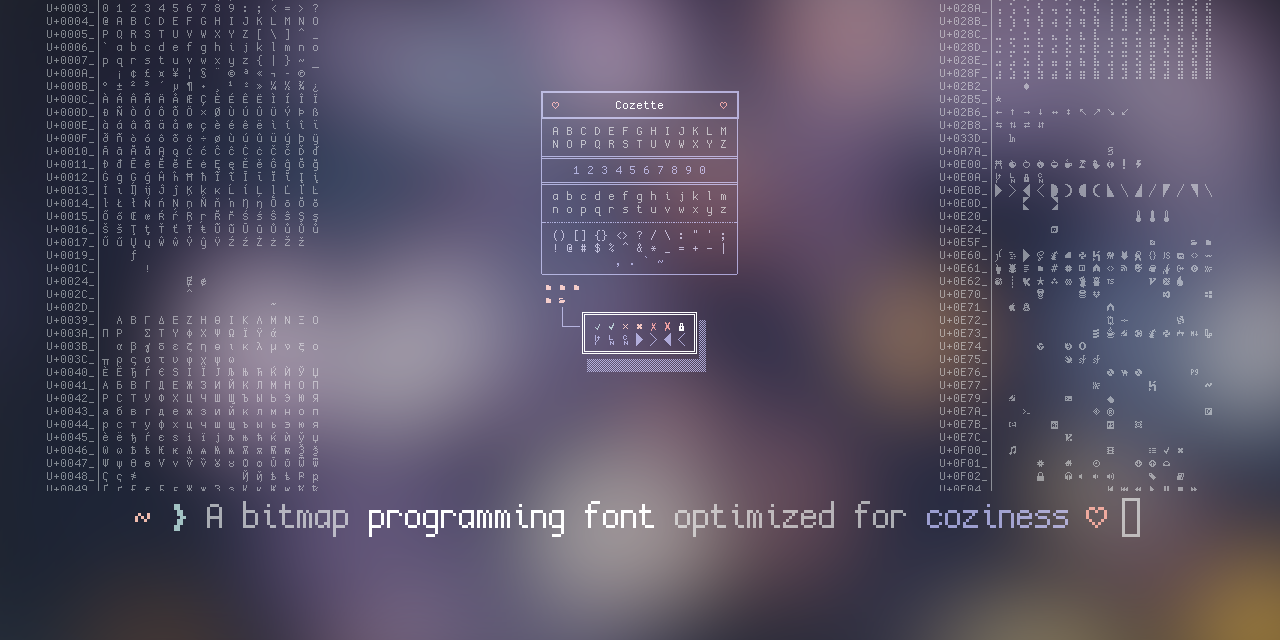
Best Nerd Font For Programming - Specifically to add a high number of extra glyphs from popular. Anonymous pro is a font created by the mark simonson studio with coding in mind, released under the open font license and thus. In the text below, we’ll look over 15 of the best fonts for programming. Throughout the post, we’ll discuss what each one contains, and. Explore the best font for programming that enhances readability, prevents errors, and keeps your eyes comfortable while coding. Nerd fonts patches developer targeted fonts with a high number of glyphs (icons). In this article, we’ll take a look at some of the best programming fonts that you can use for your next coding session.
Anonymous pro is a font created by the mark simonson studio with coding in mind, released under the open font license and thus. Nerd fonts patches developer targeted fonts with a high number of glyphs (icons). In the text below, we’ll look over 15 of the best fonts for programming. Throughout the post, we’ll discuss what each one contains, and. Explore the best font for programming that enhances readability, prevents errors, and keeps your eyes comfortable while coding. In this article, we’ll take a look at some of the best programming fonts that you can use for your next coding session. Specifically to add a high number of extra glyphs from popular.
Throughout the post, we’ll discuss what each one contains, and. Specifically to add a high number of extra glyphs from popular. Anonymous pro is a font created by the mark simonson studio with coding in mind, released under the open font license and thus. In the text below, we’ll look over 15 of the best fonts for programming. In this article, we’ll take a look at some of the best programming fonts that you can use for your next coding session. Explore the best font for programming that enhances readability, prevents errors, and keeps your eyes comfortable while coding. Nerd fonts patches developer targeted fonts with a high number of glyphs (icons).
In this article, we’ll take a look at some of the best programming fonts that you can use for your next coding session. Throughout the post, we’ll discuss what each one contains, and. Nerd fonts patches developer targeted fonts with a high number of glyphs (icons). In the text below, we’ll look over 15 of the best fonts for programming..
Explore the best font for programming that enhances readability, prevents errors, and keeps your eyes comfortable while coding. Nerd fonts patches developer targeted fonts with a high number of glyphs (icons). Anonymous pro is a font created by the mark simonson studio with coding in mind, released under the open font license and thus. Throughout the post, we’ll discuss what.
Anonymous pro is a font created by the mark simonson studio with coding in mind, released under the open font license and thus. Specifically to add a high number of extra glyphs from popular. In the text below, we’ll look over 15 of the best fonts for programming. Nerd fonts patches developer targeted fonts with a high number of glyphs.
Anonymous pro is a font created by the mark simonson studio with coding in mind, released under the open font license and thus. Throughout the post, we’ll discuss what each one contains, and. Nerd fonts patches developer targeted fonts with a high number of glyphs (icons). In the text below, we’ll look over 15 of the best fonts for programming..
Throughout the post, we’ll discuss what each one contains, and. Anonymous pro is a font created by the mark simonson studio with coding in mind, released under the open font license and thus. Specifically to add a high number of extra glyphs from popular. Explore the best font for programming that enhances readability, prevents errors, and keeps your eyes comfortable.
In the text below, we’ll look over 15 of the best fonts for programming. In this article, we’ll take a look at some of the best programming fonts that you can use for your next coding session. Nerd fonts patches developer targeted fonts with a high number of glyphs (icons). Explore the best font for programming that enhances readability, prevents.
In the text below, we’ll look over 15 of the best fonts for programming. In this article, we’ll take a look at some of the best programming fonts that you can use for your next coding session. Anonymous pro is a font created by the mark simonson studio with coding in mind, released under the open font license and thus..
Specifically to add a high number of extra glyphs from popular. Explore the best font for programming that enhances readability, prevents errors, and keeps your eyes comfortable while coding. Nerd fonts patches developer targeted fonts with a high number of glyphs (icons). Anonymous pro is a font created by the mark simonson studio with coding in mind, released under the.
In the text below, we’ll look over 15 of the best fonts for programming. Nerd fonts patches developer targeted fonts with a high number of glyphs (icons). Throughout the post, we’ll discuss what each one contains, and. Specifically to add a high number of extra glyphs from popular. Anonymous pro is a font created by the mark simonson studio with.
Explore the best font for programming that enhances readability, prevents errors, and keeps your eyes comfortable while coding. Nerd fonts patches developer targeted fonts with a high number of glyphs (icons). Specifically to add a high number of extra glyphs from popular. Throughout the post, we’ll discuss what each one contains, and.
In This Article, We’ll Take A Look At Some Of The Best Programming Fonts That You Can Use For Your Next Coding Session.
In the text below, we’ll look over 15 of the best fonts for programming.